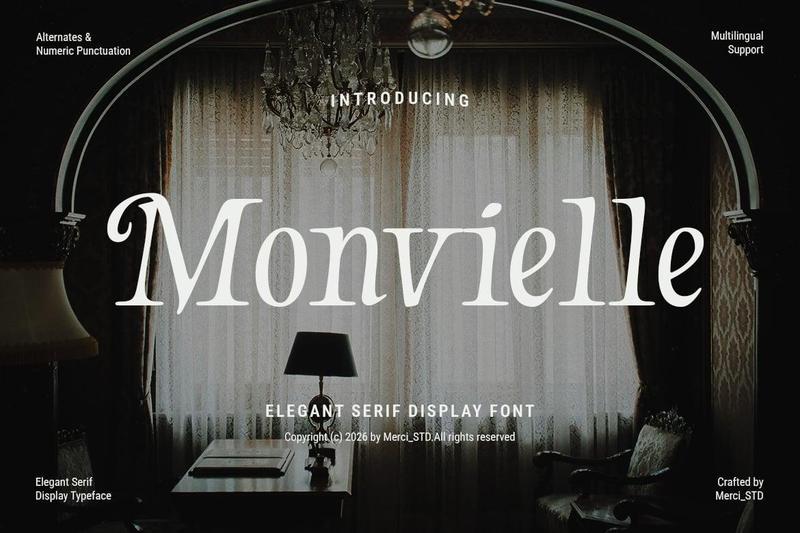
Monvielle – Elegant Serif Display Font SFA2RTC
Monvielle Elegant Serif Display Font SFA2RTC
Monvielle is an elegant serif display font crafted with delicate proportions and sophisticated details. Perfect for luxury branding, editorial design, invitations, beauty products, packaging, premium logos, and artistic projects. The refined letterforms provide a graceful and timeless appearance that enhances professional and upscale visual communication.
* Unique Hand-Drawn Style